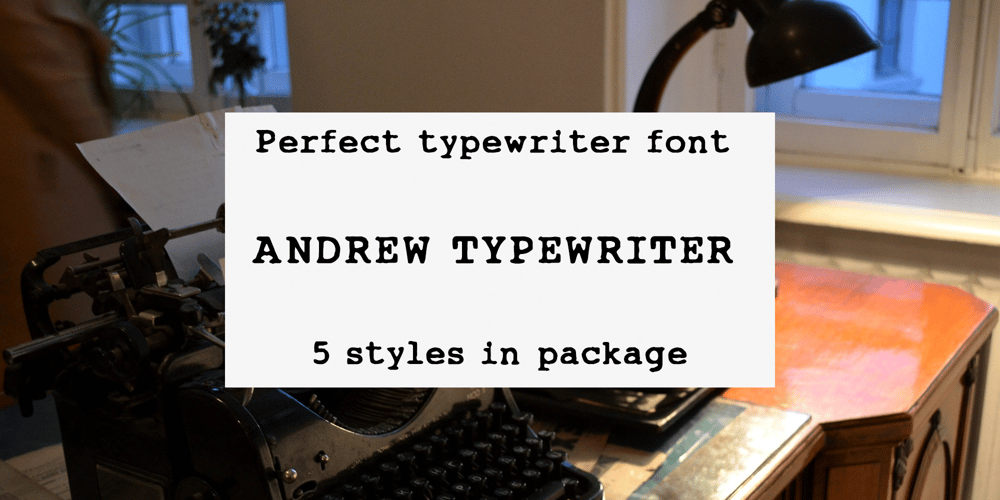
Andrew Typewriter Font Family was designed by Andrew Tomson and published by Andrew Tomson. Andrew Typewriter contains 5 styles and family package options. Greetings, friend. I created this font for personal use on a YouTube themed channel about old things. The comments often ask what font I use, so I decided to share it with the community. You can use it in your commercial projects and for personal use. The font is great for creating a vintage text feel. The font is perfectly readable and scalable because I chose the most comfortable DPI for scaling when creating it. I wish you good luck and enjoy using this font!